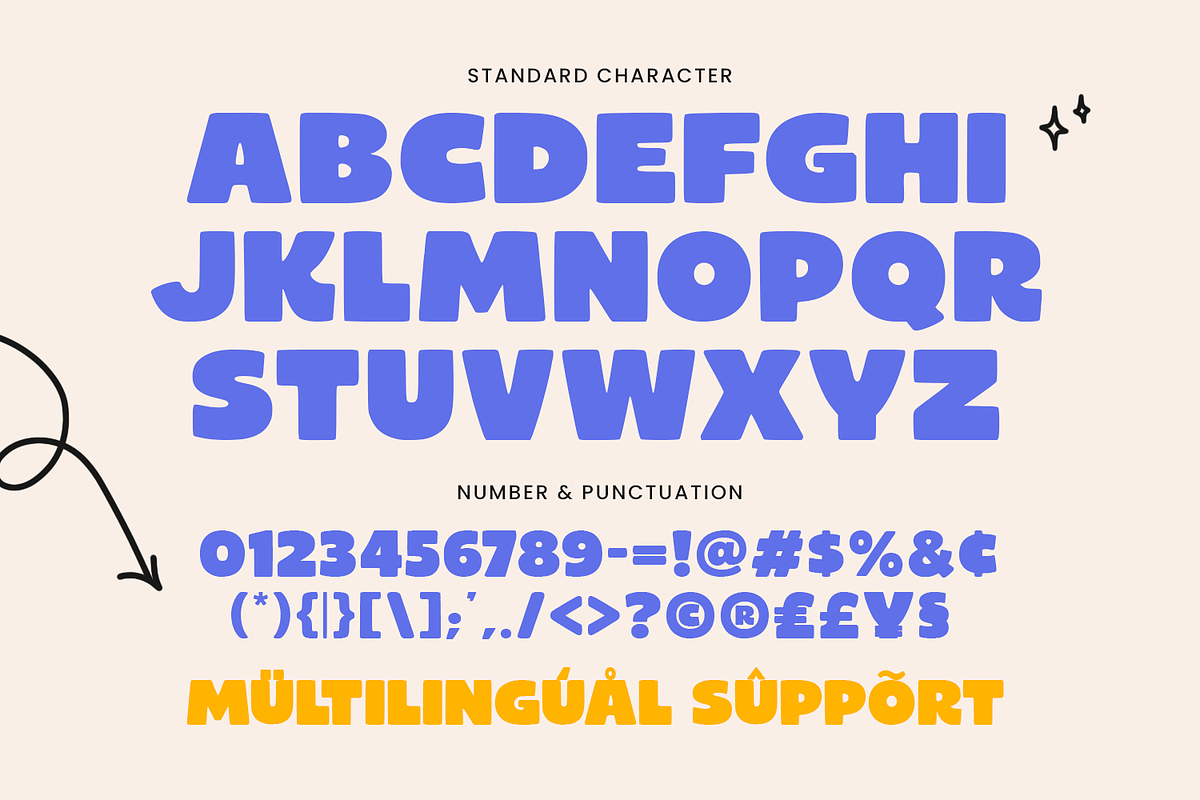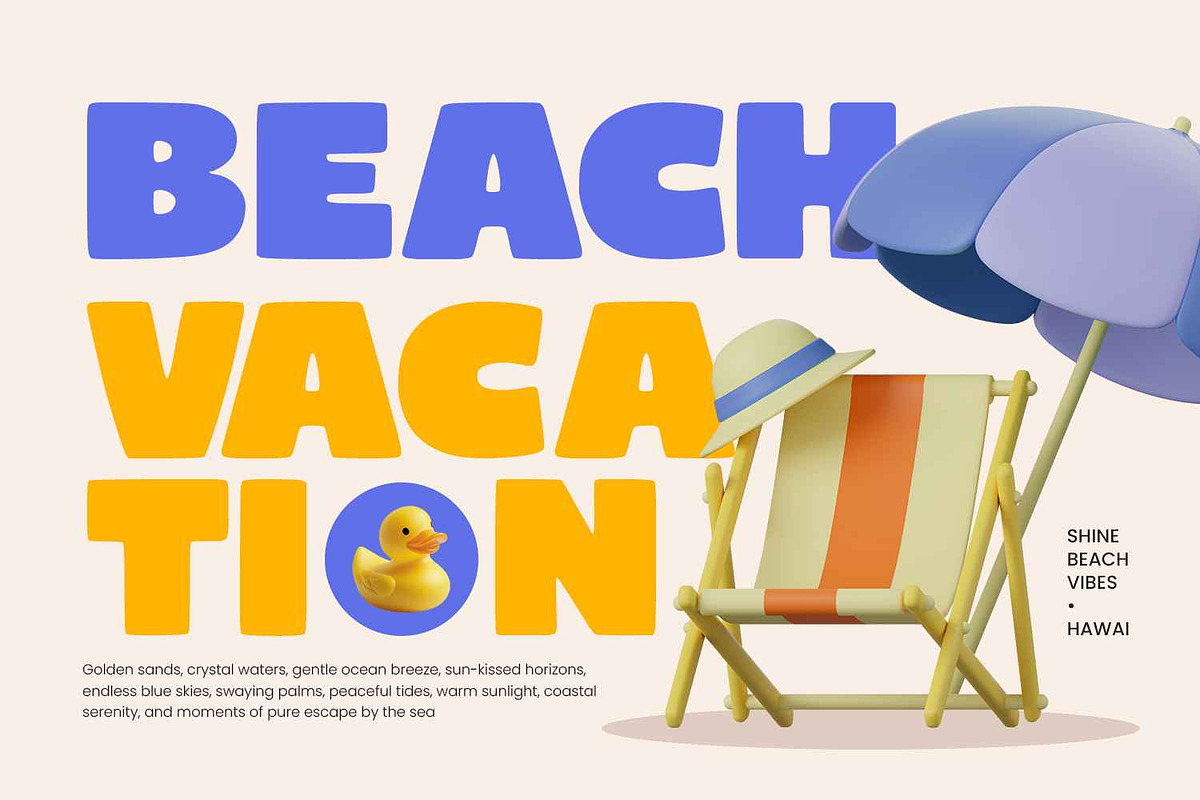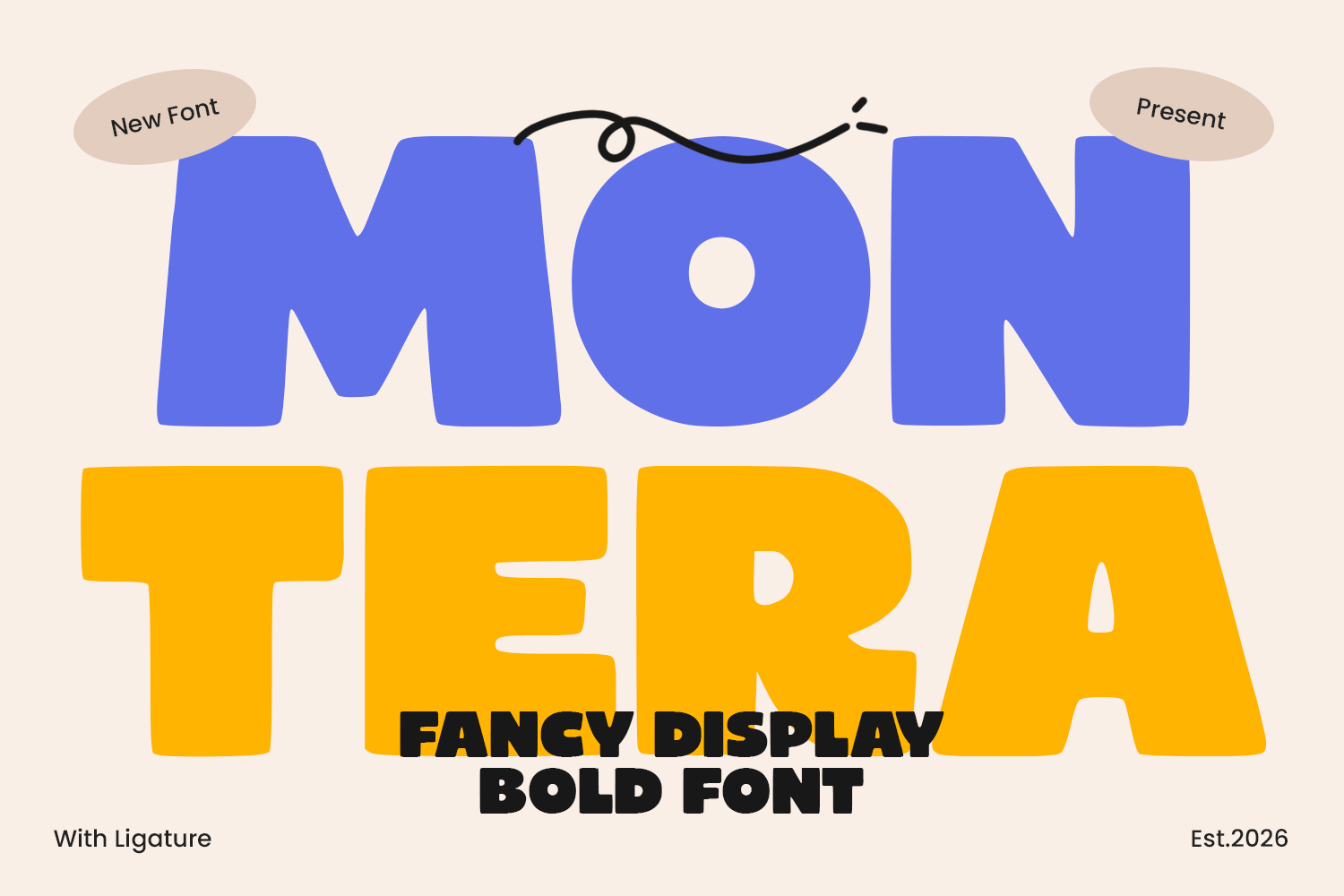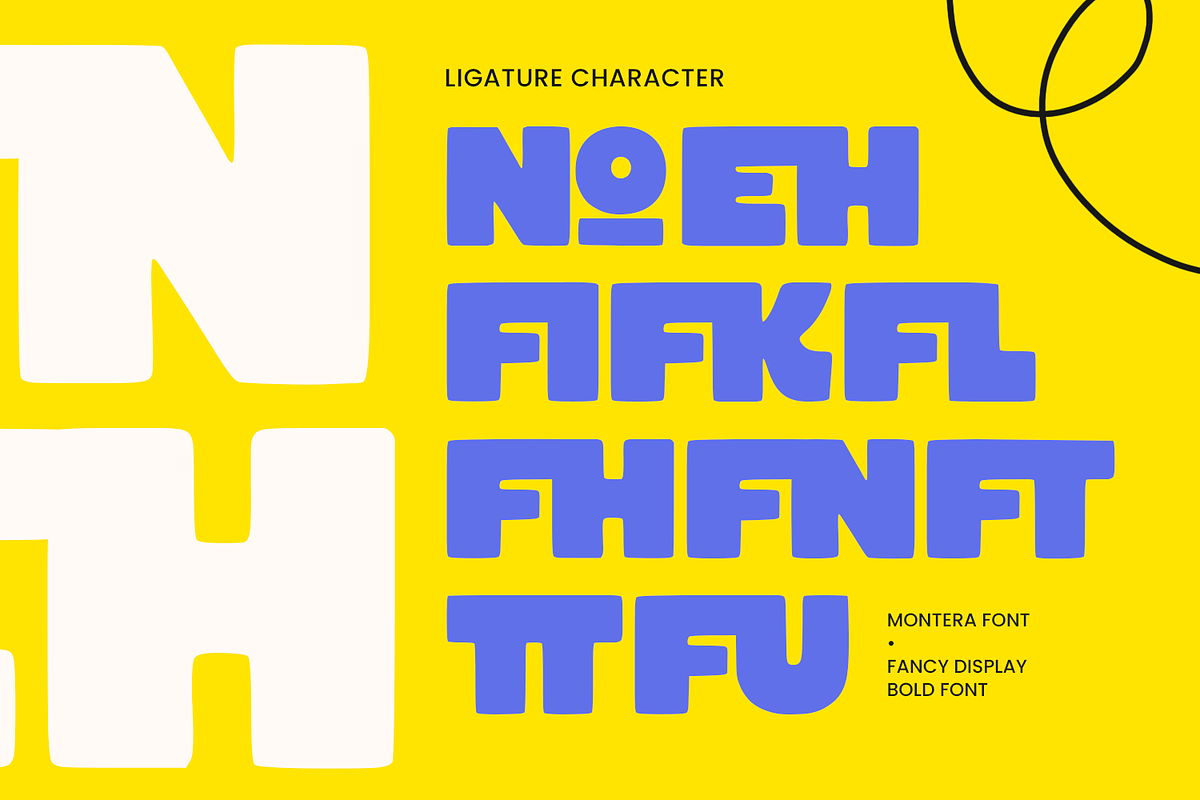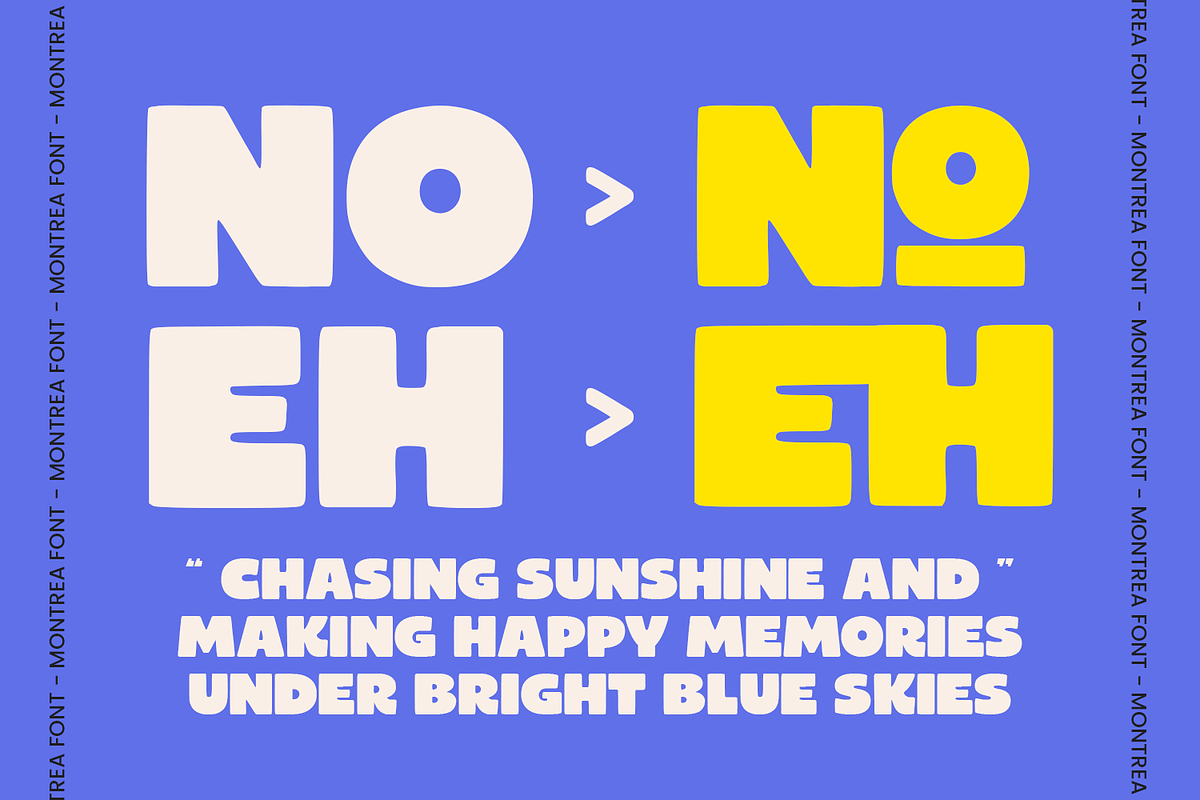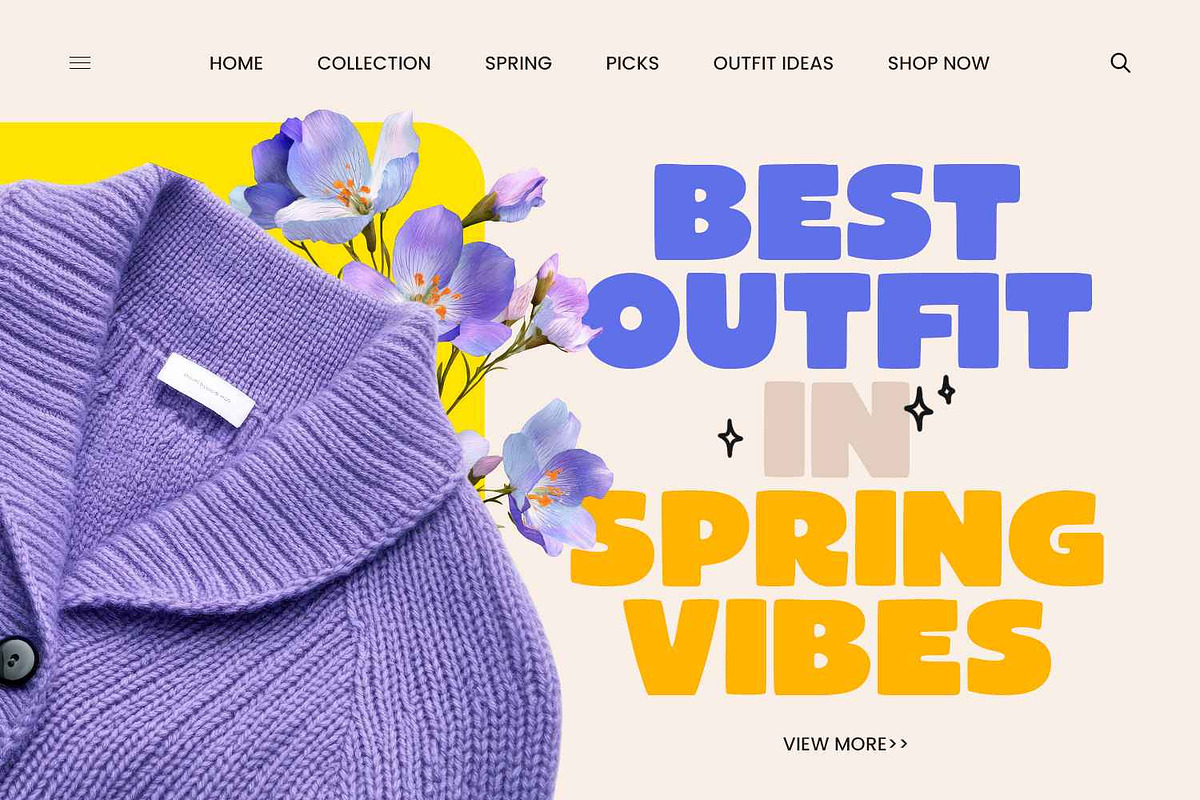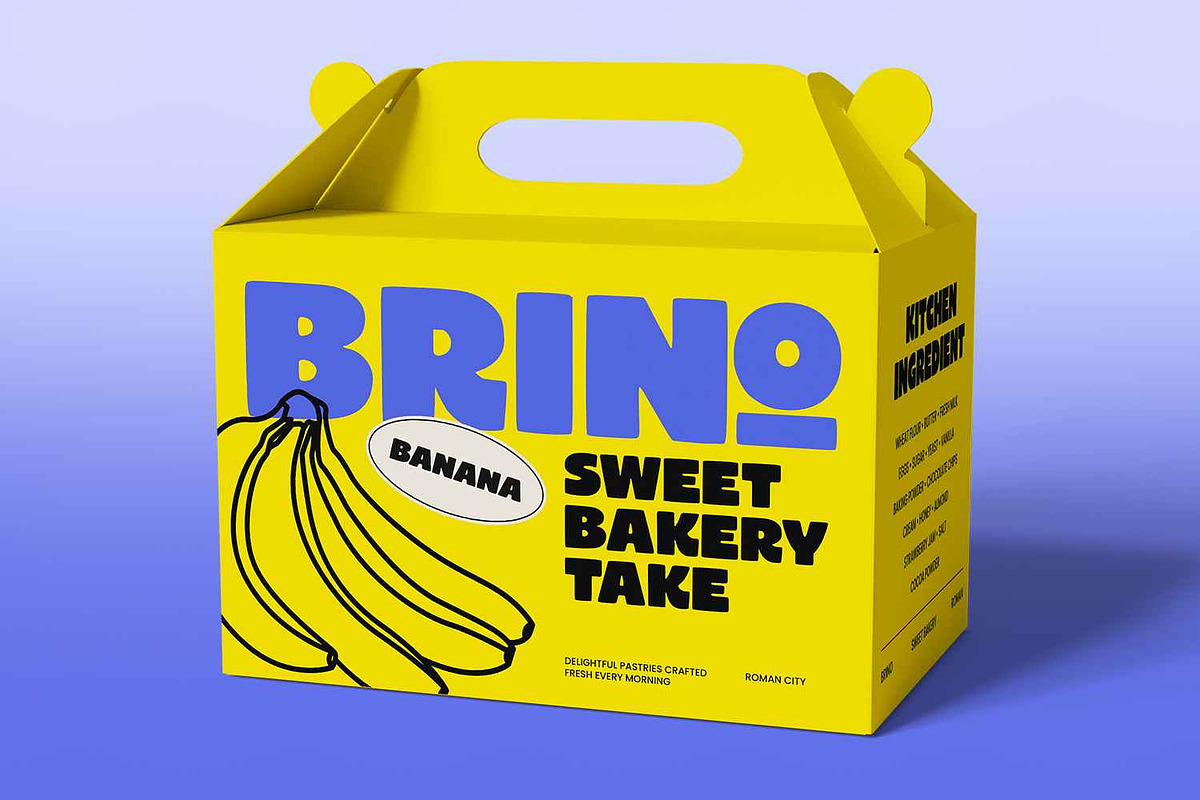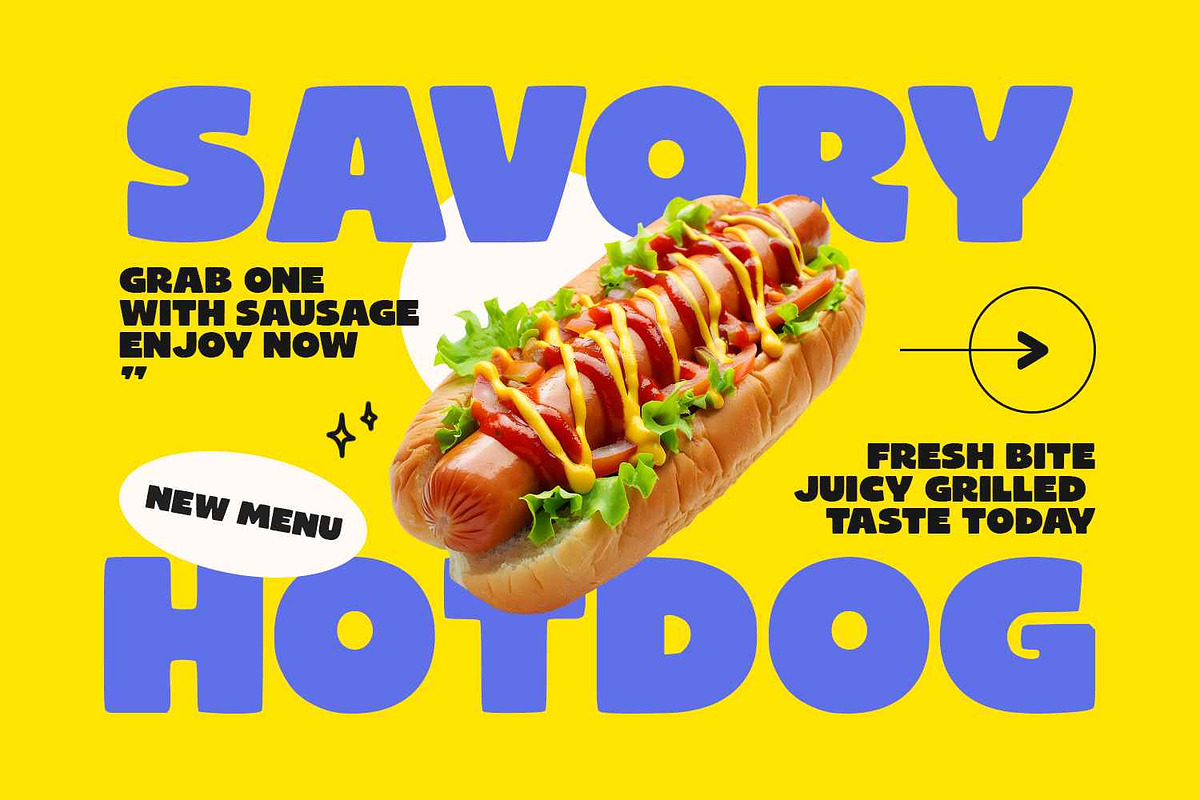
Montera - Food Font
Montera – Bold Playful Sans Serif Font
Montera is a bold sans serif font that combines strong typography with a playful and cheerful personality. With its thick strokes, smooth curves, and rounded structure, Montera delivers a confident visual impact while maintaining a friendly and approachable look. The design is crafted to grab attention instantly, making it perfect for vibrant and expressive creative projects.
The bold structure ensures excellent readability, even at larger display sizes. Montera’s balanced proportions and soft curves create a lively rhythm across each letter, giving designs a sense of warmth and energy. This makes it especially suitable for projects that need a bold yet fun typographic voice.
Montera is particularly well-suited for food and beverage branding. It works beautifully for menus, snack packaging, drink labels, dessert branding, and promotional graphics. Its cheerful shapes and bold presence help create inviting designs that instantly attract customers and communicate a sense of delicious fun.
Beyond food-related themes, Montera also shines in craft and DIY projects. It’s perfect for stickers, greeting cards, handmade labels, and cutting-machine projects using tools like Cricut or Silhouette. Whether used for bakery packaging, café signage, or creative merchandise, Montera keeps designs looking playful, bold, and easy to read across both print and digital platforms.
With its strong personality and versatile style, Montera helps brands feel memorable, approachable, and energetic. From food brands and beverage promotions to craft businesses and creative campaigns, this font adds a bold burst of character to every design.
Bold Sans Serif Style Strong strokes with smooth curves for a confident look.
Playful & Friendly Character Rounded shapes that create a cheerful and inviting feel.
Display-Friendly Typography Designed to stand out in headlines and branding.
Perfect for Food & Beverage Designs Ideal for menus, packaging, and promotional graphics.
Craft & DIY Friendly Great for Cricut, Silhouette, stickers, and handmade projects.
Multilingual Support Extended characters for international design use.
• Food & Beverage Branding • Café & Bakery Logos • Menu Design • Snack & Dessert Packaging • Promotional Posters • Craft & Cricut Projects • Stickers & Merchandise • Greeting Cards & Labels
Add Bold Flavor to Your Designs
If you’re looking for a typeface that blends bold typography with playful charm, Montera is the perfect choice. Its friendly shapes and strong visual presence make it ideal for creating fun, vibrant, and memorable designs.